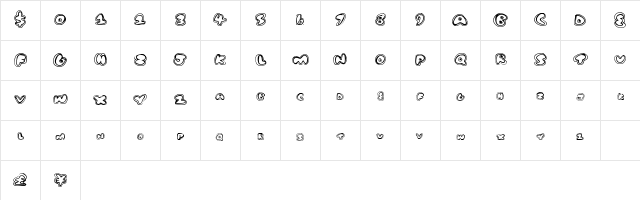
TugBoat Regular Free Font
TugBoat Regular
Foundry: Xerographer Fonts
Designer: Max Infeld
Design Context for TugBoat
TugBoat is a composed and adaptable typeface that performs quietly and consistently across a wide range of design contexts.